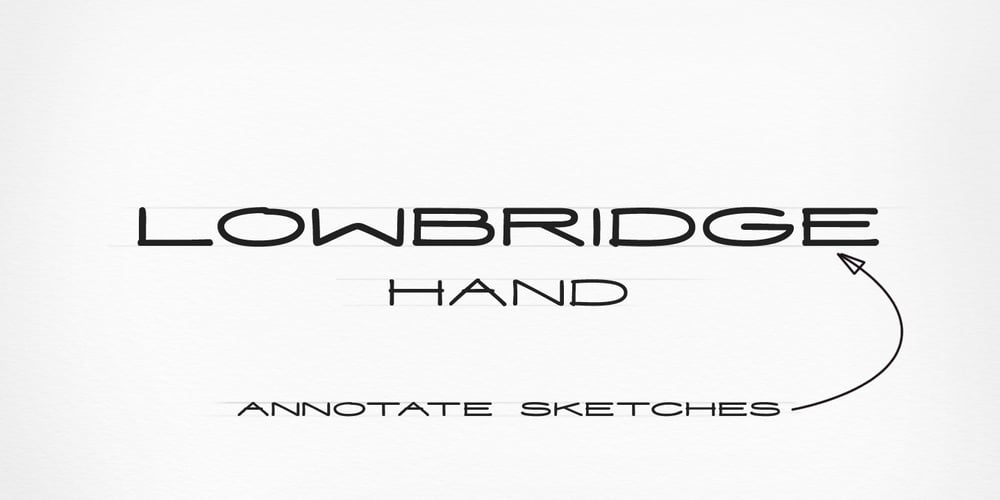
Lowbridge Hand Font Family was designed by Blake Cotterill and published by Blake Cotterill. Lowbridge Hand contains 18 styles and family package options. I designed Lowbridge Hand for product designers, fashion designers, architects, garden designers and anyone who wants to annotate their sketches and drawings. This is something I wish I had when I was a design student. It has different weights allow you to better match your pen size used on your drawings or to emphasise text. It is an all caps font. I hope you enjoy using Lowbridge Hand for your drawings.